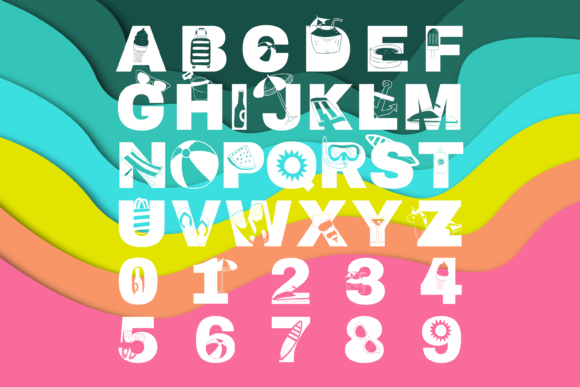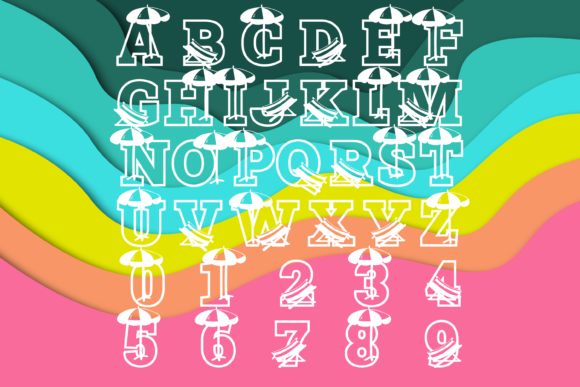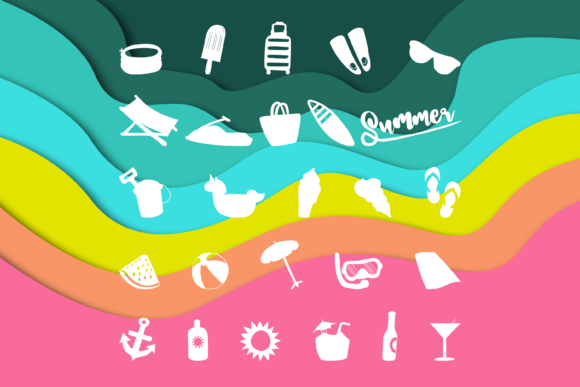
Introduction to Enjoy Summer Trio Font
Enjoy Summer Font Trio is an incredibly cool font (display, serif, and dingbats).
Whether you use it for cartoon-related designs, childrenโs games, or just any creation that requires a lovely touch, this font will be an amazing choice .
Key Features of Enjoy Summer Trio Font
Why Choose Enjoy Summer Trio Font?
Enjoy Summer Trio Font offers exceptional quality and versatility, making it a valuable addition to your design toolkit. Whether you’re creating for personal projects or commercial use, Enjoy Summer Trio Font delivers professional results.